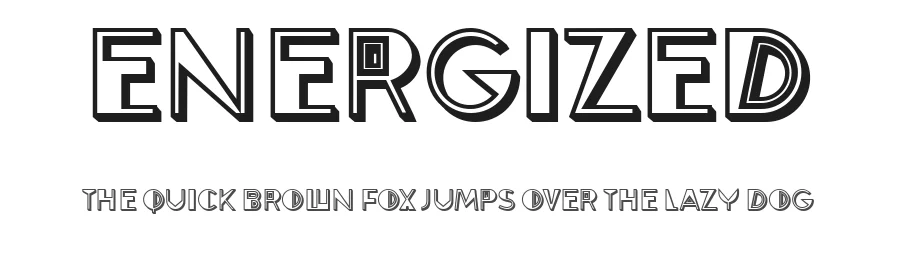
About Sesame Font
Sesame Font is a decorative font that shines as a display or heading face. Pair it with a clean sans-serif or serif font for body text β the contrast creates a clear hierarchy while the two styles stay balanced and easy to read.
Sesame Font
Sesame Font is a decorative typeface by Dieter Steffmann, ideal for logos, invitations, branding, and creative projects.